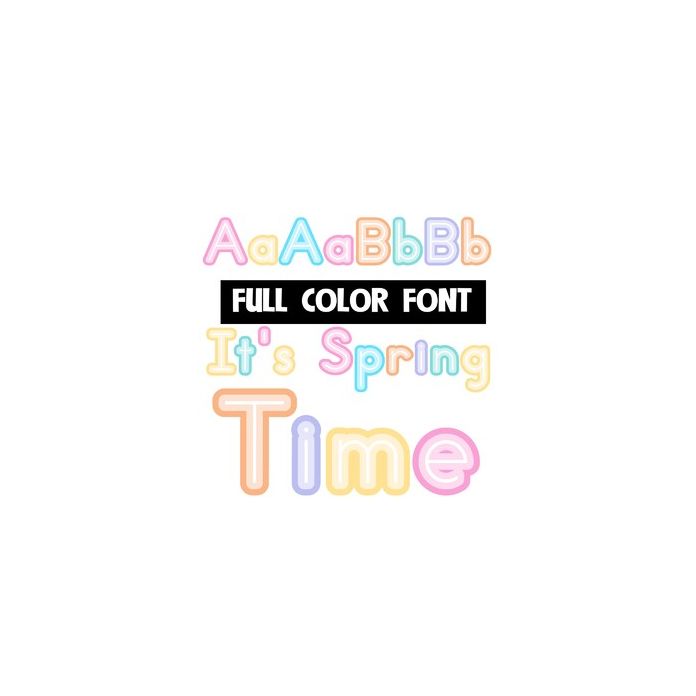
This full-color font features spring colors and has a secondary upper and lowercase you can access through Silhouette's glyph map. This font works best for titles, displays, posters and more. Please note color fonts will show as black in non compatible programs. This font type is compatible with Silhouette Studio.